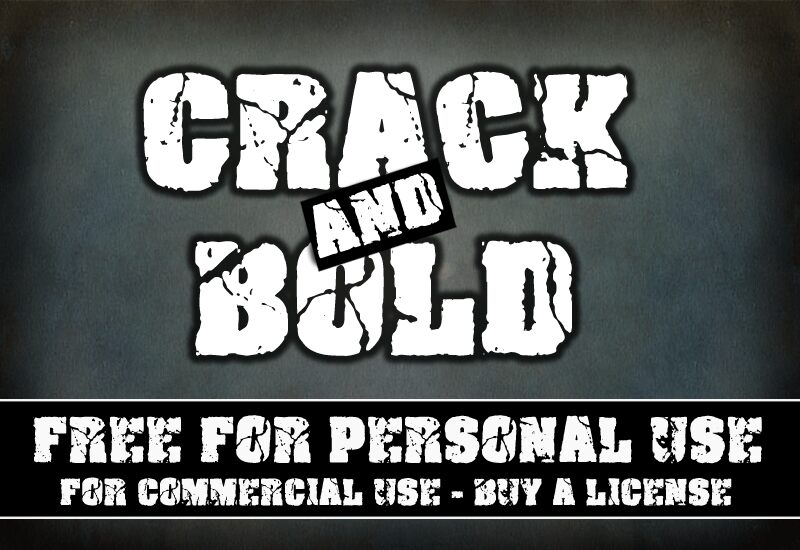
CF Crack and Bold, a free distorted display font by Cloutier Fontes, uses massive, tightly packed capitals split by deep cracks and chipped gaps. Its rough silhouette feels damaged rather than merely weathered.
A hard-rock label or horror attraction could use its fractured lettering as a blunt, aggressive brand signature. The same broken shapes suit album covers, event posters, and game graphics centered on destruction, danger, urban ruin, or post-apocalyptic settings.
CF Crack and Bold Regular is a font by CloutierFontes, designed by Steve Cloutier in 2010.